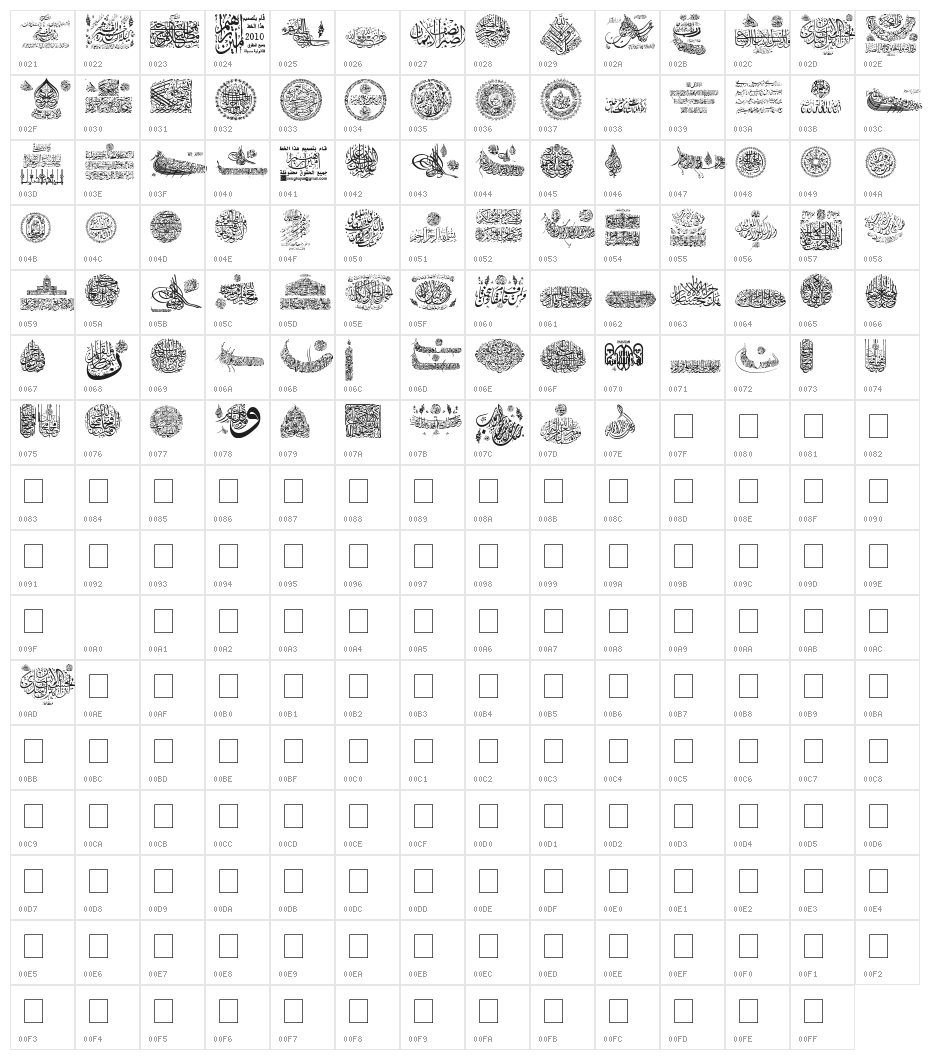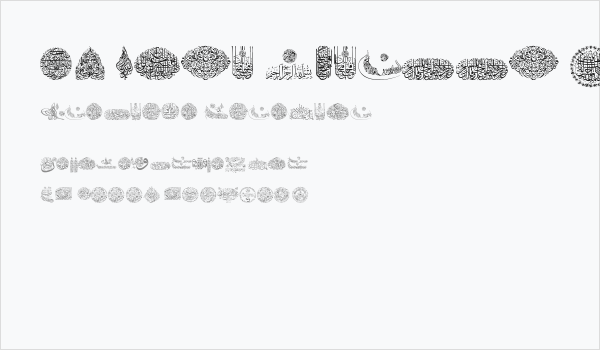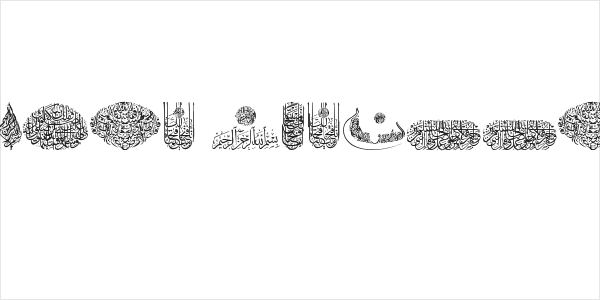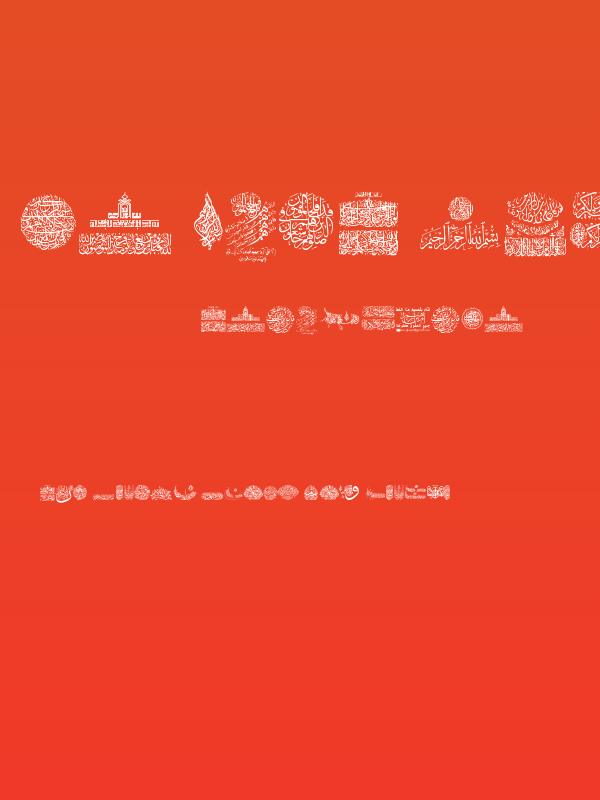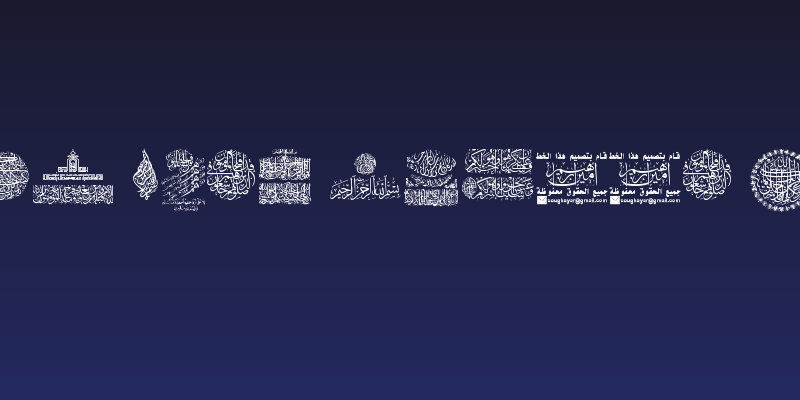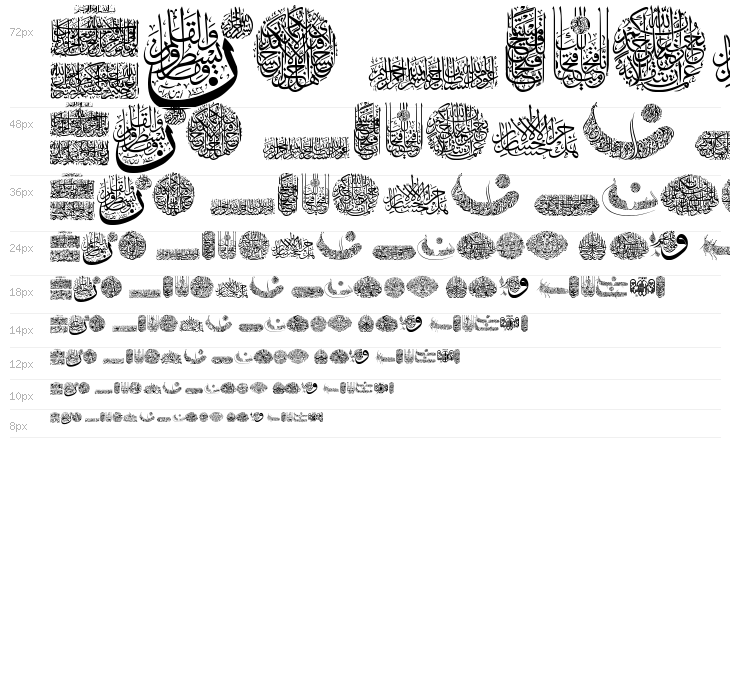
My Font Quraan 2 Font
My Font Quraan 2 Description
Highly decorative Arabic calligraphic glyphs, each character is represented by intricate religious or ornamental artwork rather than standard letterforms. The style is ornate, with dense linework and complex shapes, often forming circular or geometric compositions.
| Overall Style | Decorative, Religious, Traditional |
| Use Case | Decorative headings, art pieces, religious documents, logos. |
| Proposed Projects | Religious publications, Islamic art posters, ceremonial invitations, decorative panels, cultural branding. |